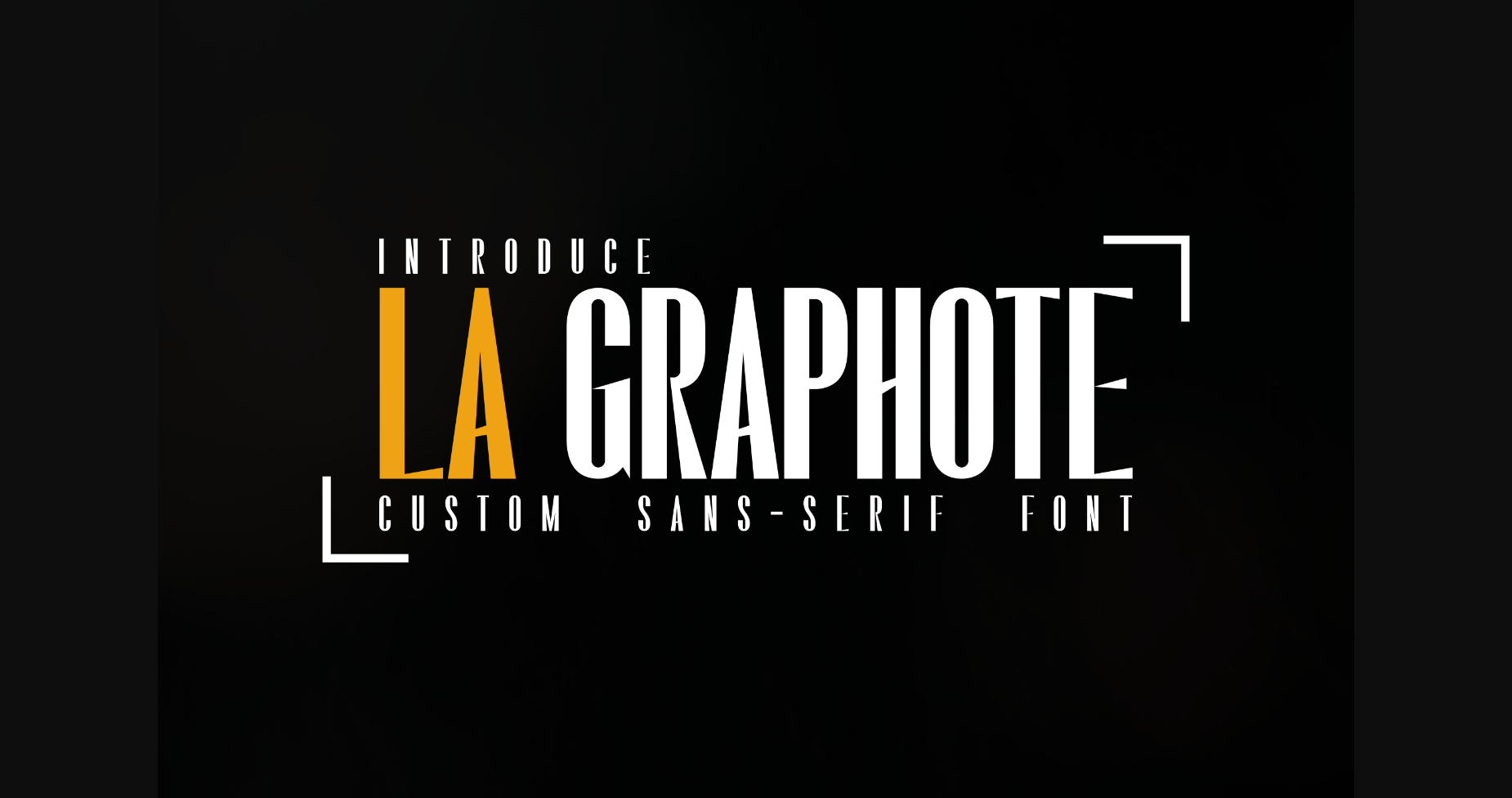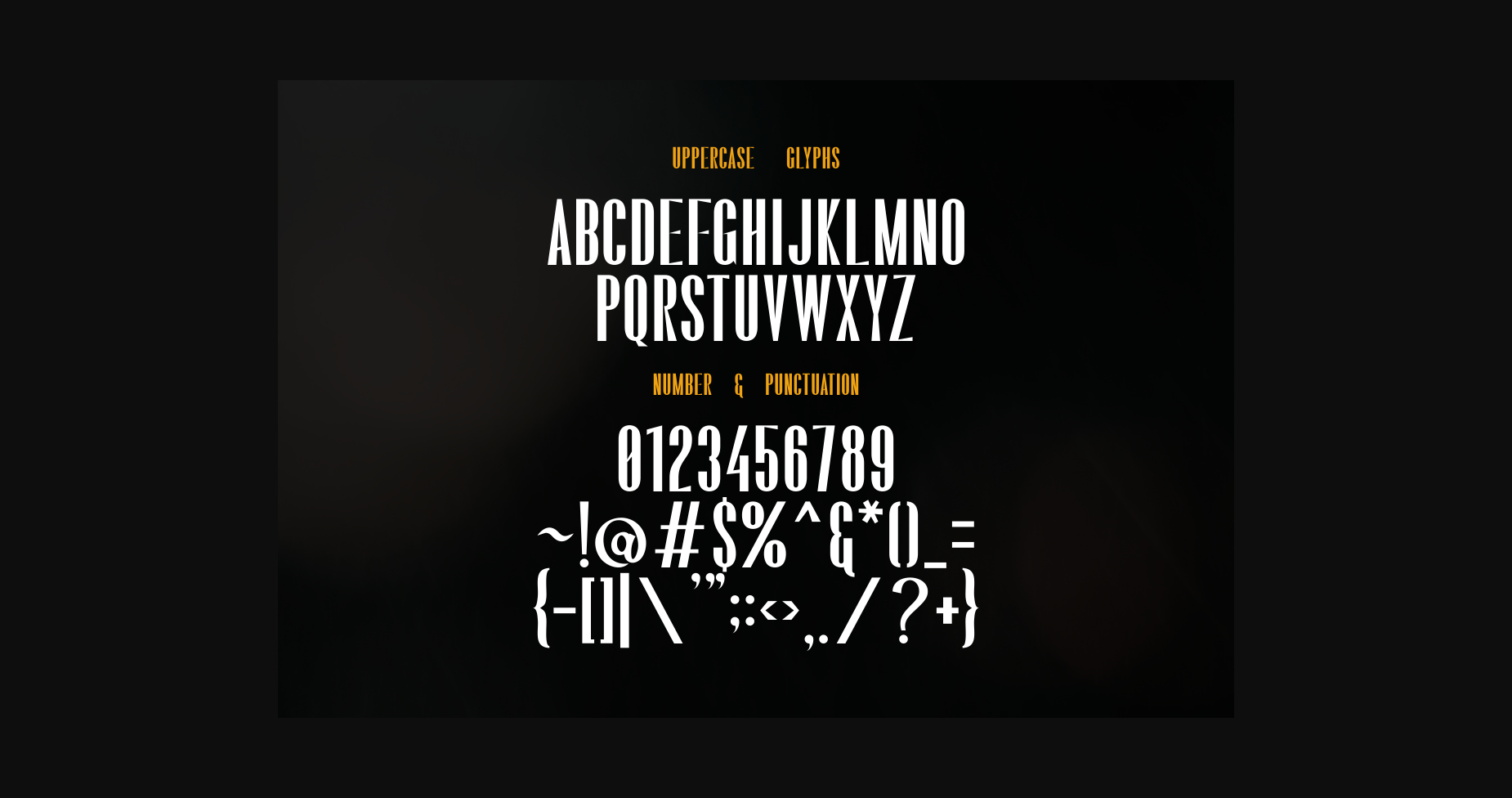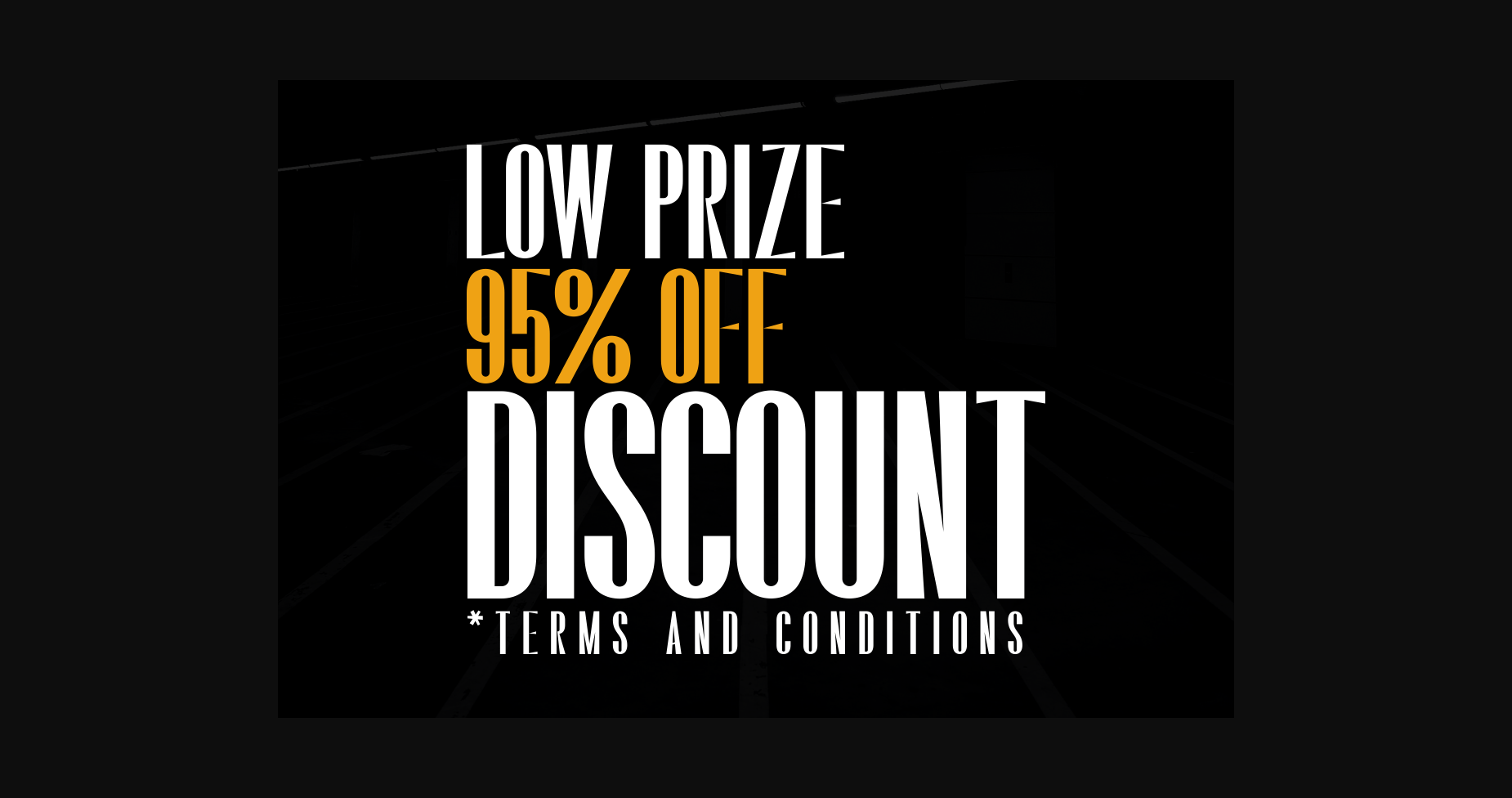
About La Graphote Font
Is a slightly slab-serif font type but still sturdy, suitable for jobs that require large writing on product descriptions to be sold, such as:
1. Casual products related to clothing
2. Discounts are jarring
3. Masculine or macho products are no less interesting
4. Suitable for Banners / Posters
5. Maybe you find another idea?
1. Casual products related to clothing
2. Discounts are jarring
3. Masculine or macho products are no less interesting
4. Suitable for Banners / Posters
5. Maybe you find another idea?